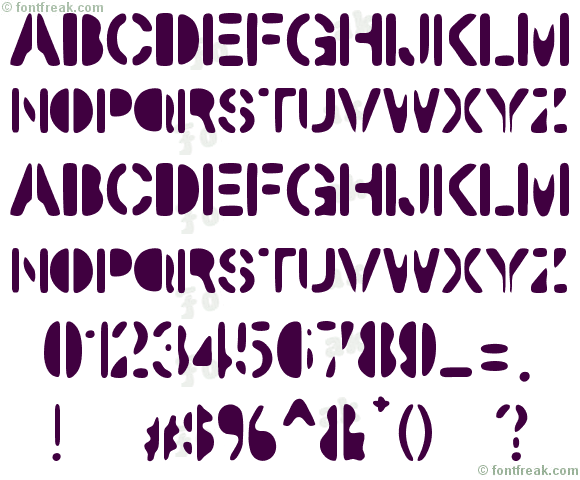
The Second World War
About The Second World War
The Second World War font by woodcutter Manero is a striking display typeface that captures the essence of its historical inspiration. With its bold, blocky letterforms and slightly roughened edges, this font embodies a sense of strength and resilience, making it ideal for projects that require a strong visual statement. The stroke weight is consistent throughout, providing a solid presence on any medium, while the minimal contrast gives it a straightforward yet impactful look. The spacing is carefully balanced, ensuring readability without sacrificing character.
This typeface shines in a variety of applications. It is perfect for movie posters, where its dramatic flair can evoke the intensity of historical narratives. Additionally, The Second World War font works well for book covers, particularly those focusing on history or war themes, as it draws immediate attention while conveying gravitas. Small business owners can utilize this font in promotional materials or signage, especially for establishments offering vintage or rustic products. It also finds its place in graphic design projects aimed at conveying a sense of urgency or importance, such as event flyers or social media graphics.
Target audiences for this font include graphic designers, content creators, and small business owners who seek to make a bold statement through their visual branding. The font’s unique character appeals to those looking for something beyond the ordinary, allowing them to stand out in a crowded market.
What makes The Second World War font particularly remarkable is its ability to blend historical context with modern design needs. It serves as a powerful reminder of the past while still feeling fresh and relevant, making it an excellent choice for anyone looking to add a distinctive touch to their work. For those interested, The Second World War font free download is a fantastic opportunity to incorporate this unique typeface into your design toolkit.